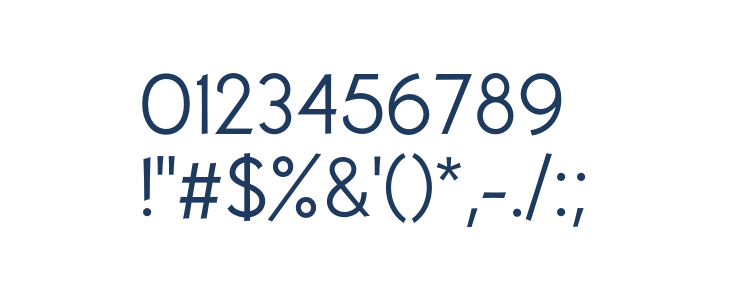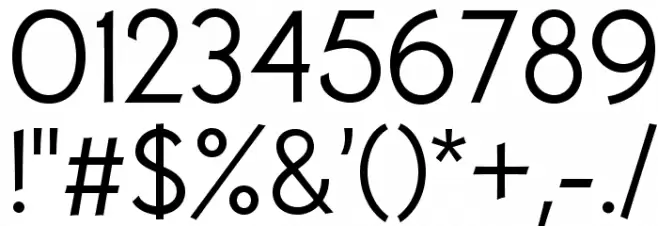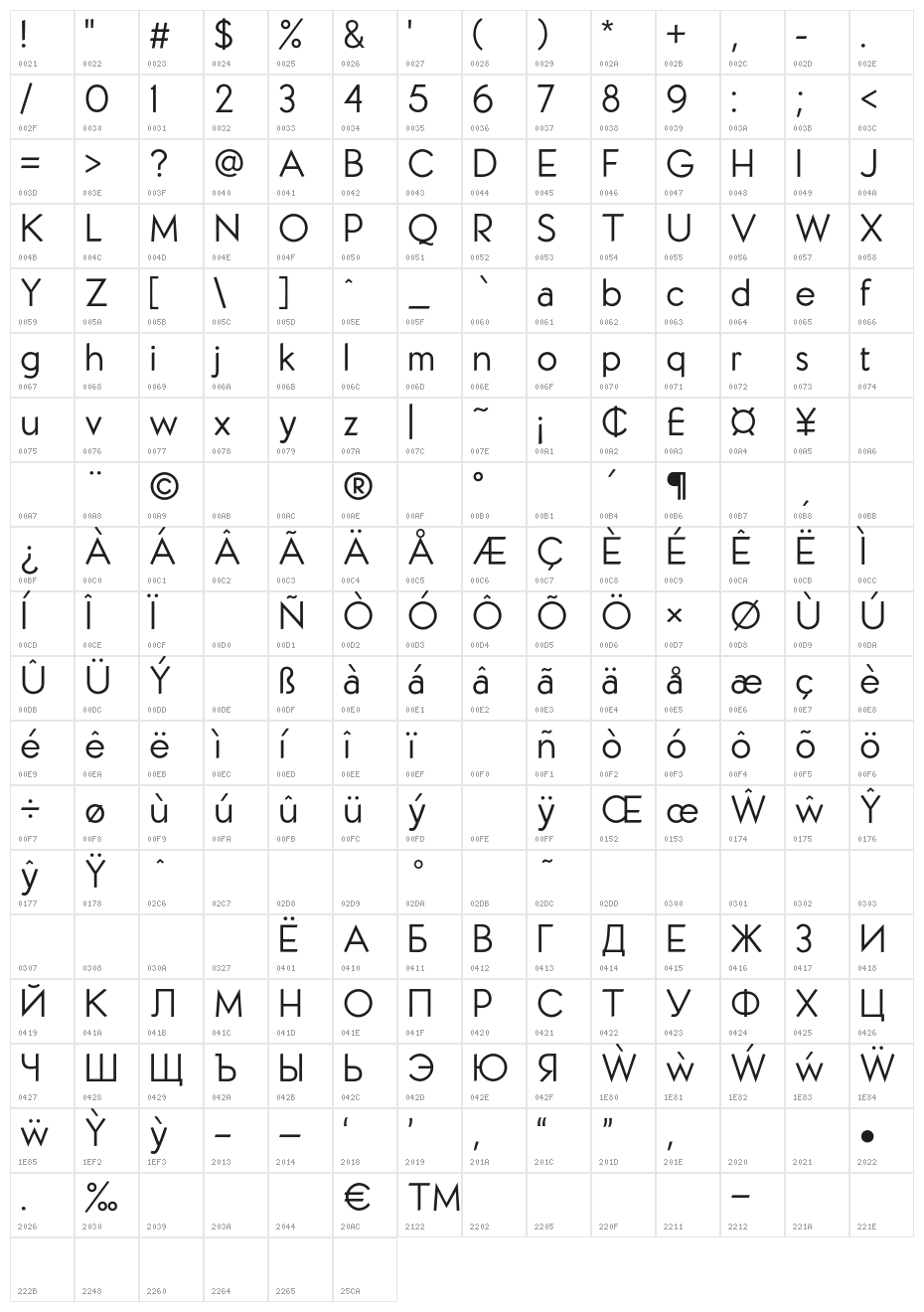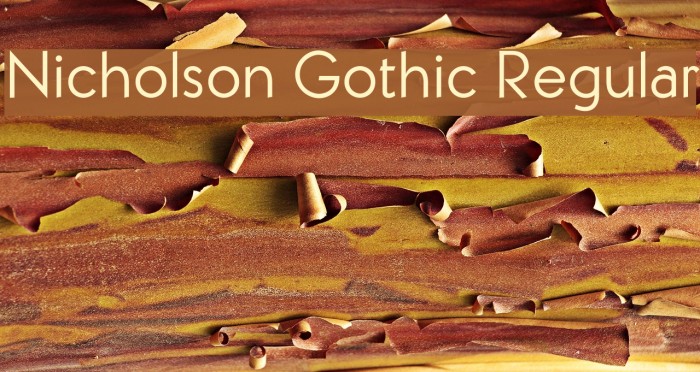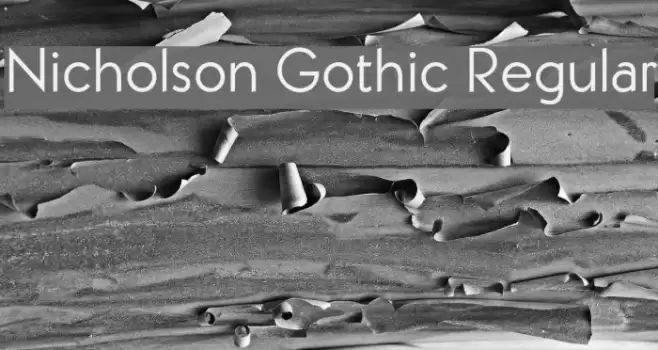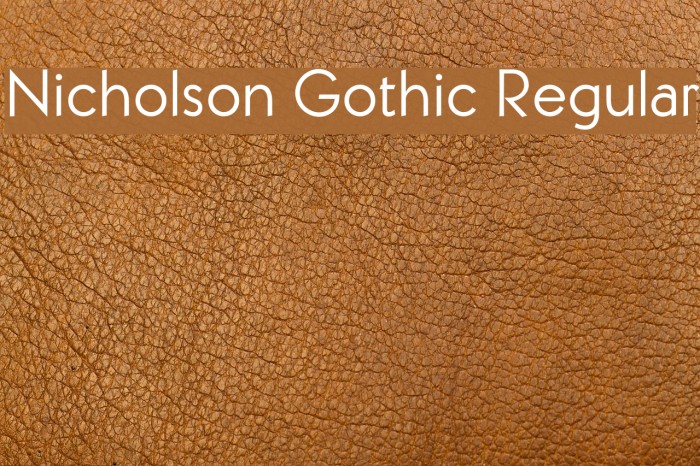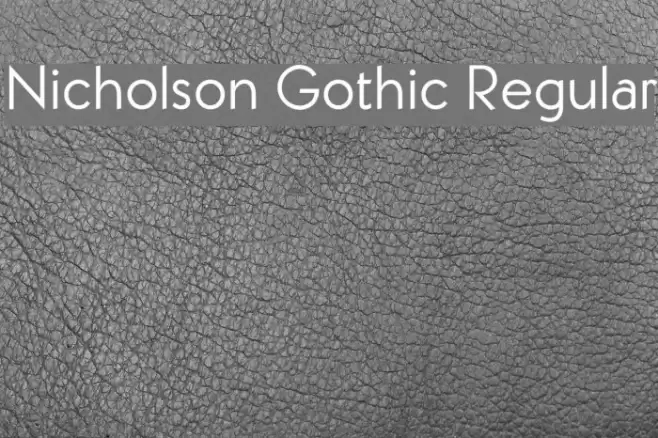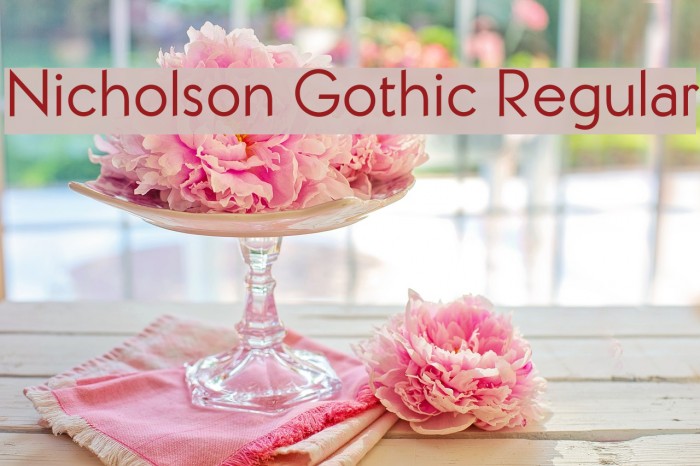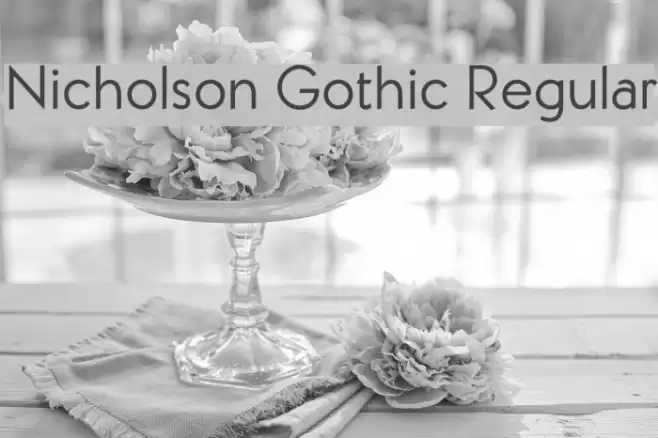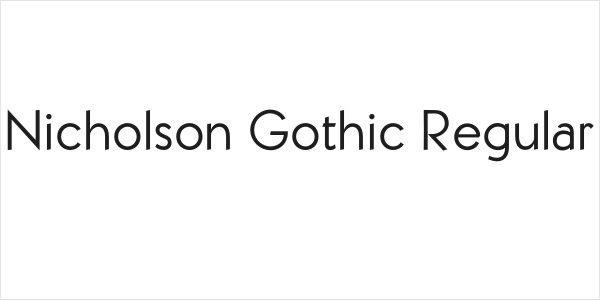
Nicholson Gothic Regular Font
Nicholson Gothic Regular Description
This typeface features a clean and modern sans-serif design with a geometric structure. The characters are evenly spaced, providing a balanced and harmonious appearance. The uppercase letters are bold and assertive, while the lowercase letters maintain a consistent and smooth flow. The numerals are clear and legible, making them suitable for various applications. The special characters are well-integrated, maintaining the overall aesthetic of the typeface. Its simplicity and clarity make it versatile for both digital and print media.